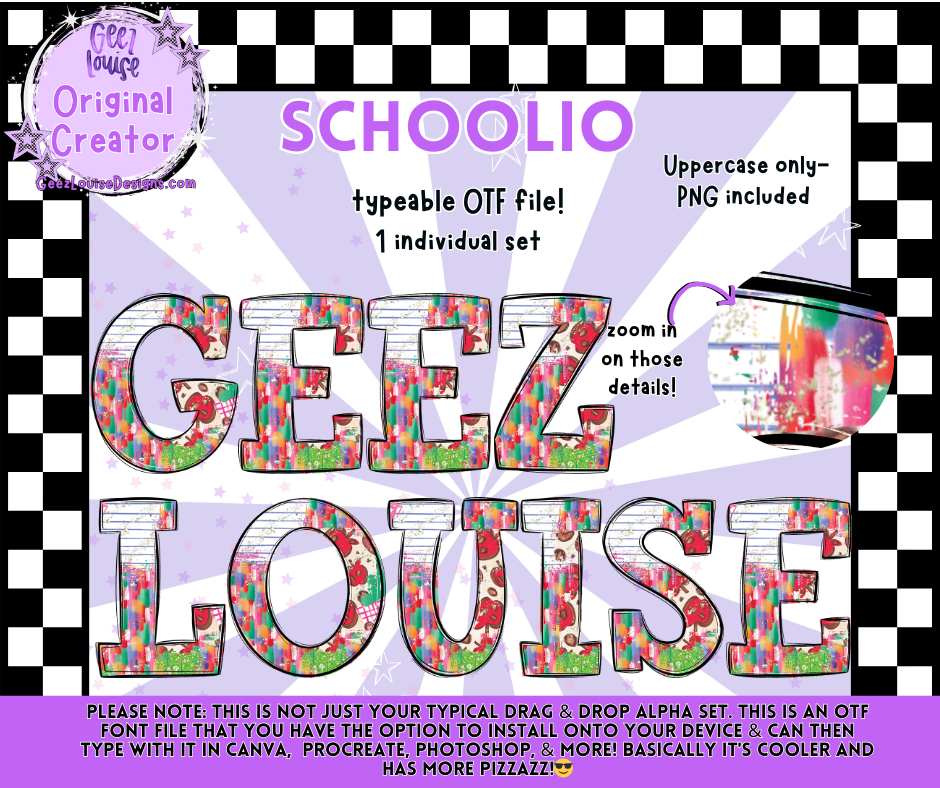
SCHOOLIO — Typeable OTF Alpha Font + PNGs
Bright, bold, and classroom‑cute — Schoolio is the perfect alpha for teachers, parents, and makers who love colorful, playful designs. With its patterned textures and high‑energy vibe, this typeable OTF font makes back‑to‑school creations fast, fun, and totally adorable.
• Uppercase A–Z
• Vibrant, kid‑friendly patterns
• Clean, crisp print‑ready details